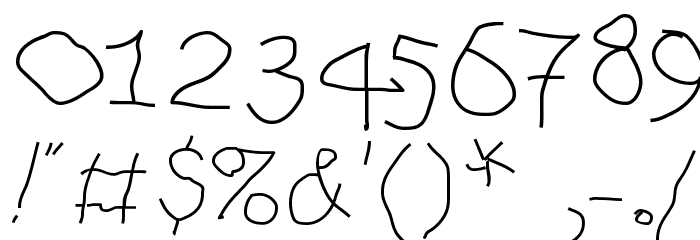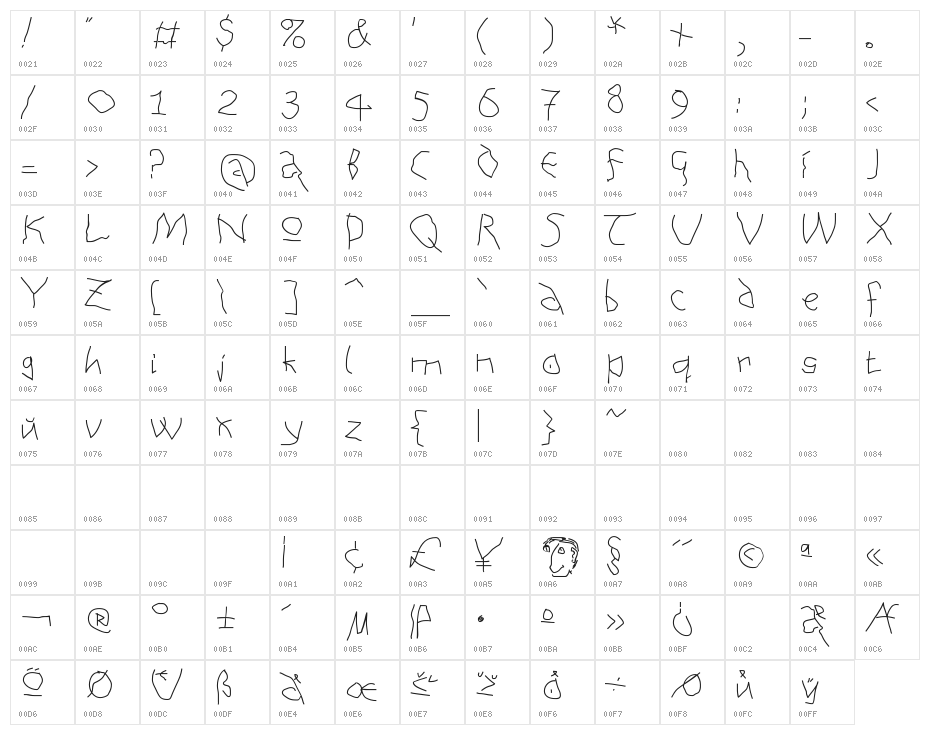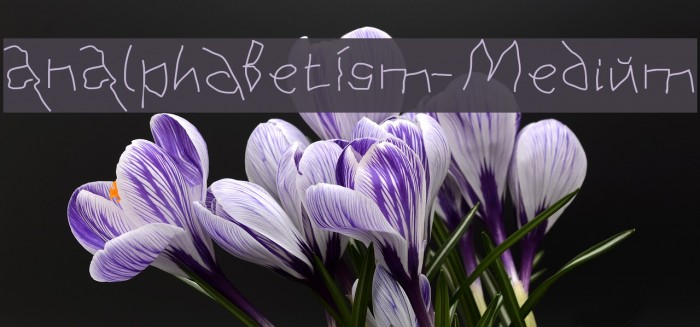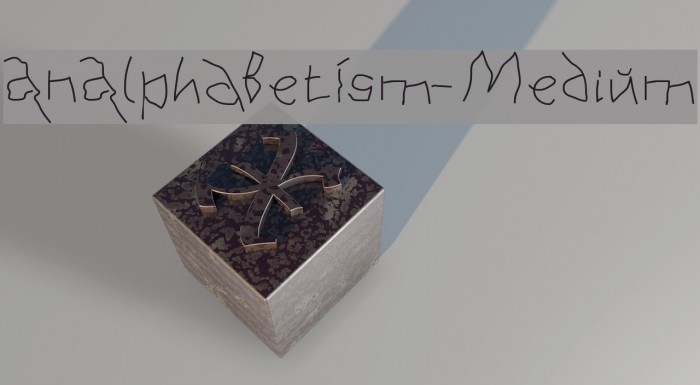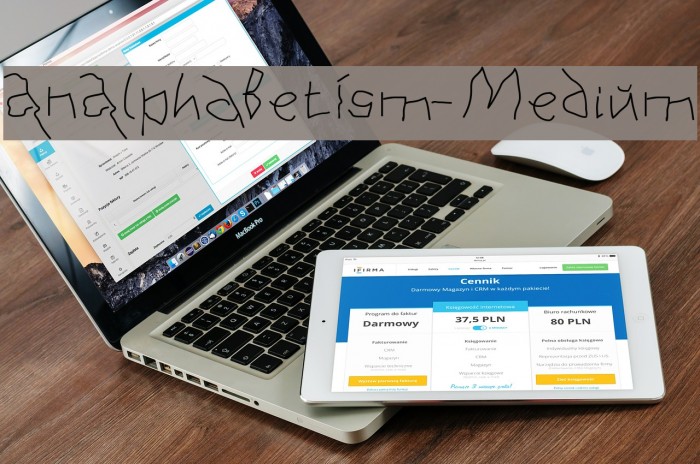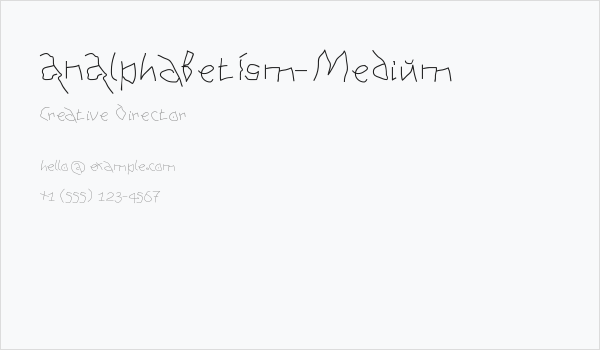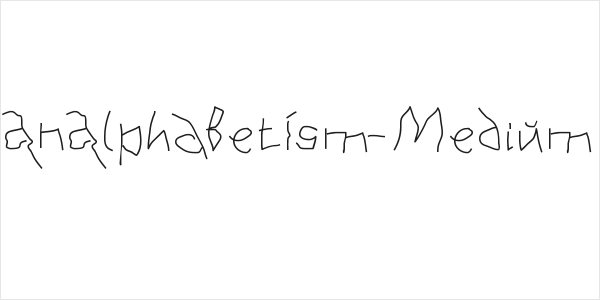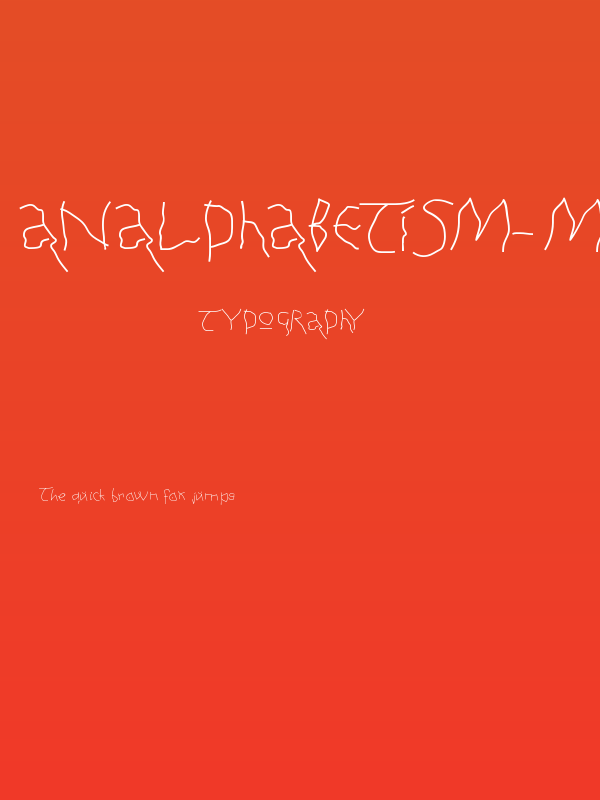
AnAlphaBetIsm-Medium Font
AnAlphaBetIsm-Medium Description
This font features a unique, hand-drawn style with irregular, jagged lines that give it a playful and artistic appearance. The characters are unevenly shaped, adding a whimsical and informal touch. The uppercase and lowercase letters maintain a consistent style, with varying stroke thicknesses that create a dynamic and lively look. Numbers and special characters follow the same quirky design, making this font suitable for creative projects that require a personal and distinctive touch.
| Proposed Projects | Ideal for children's book covers, artistic posters, creative branding, and informal invitations. |